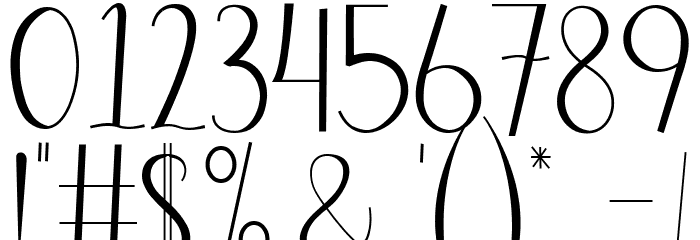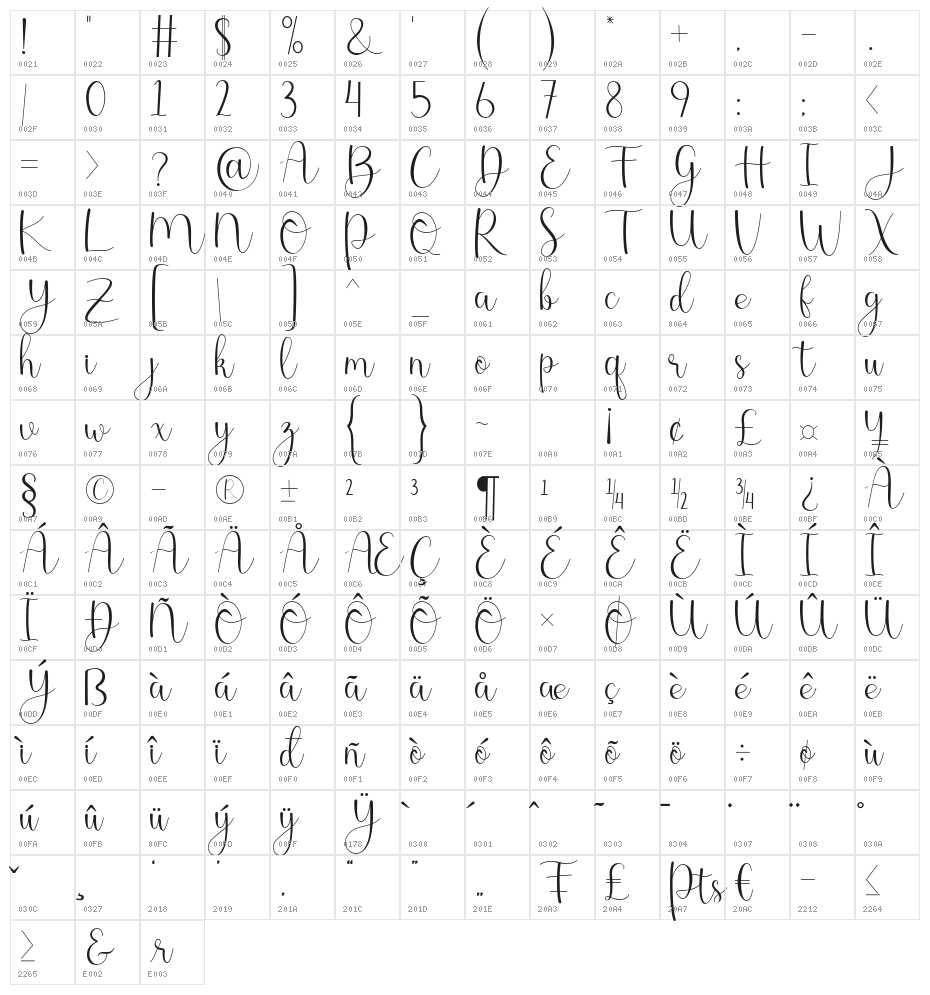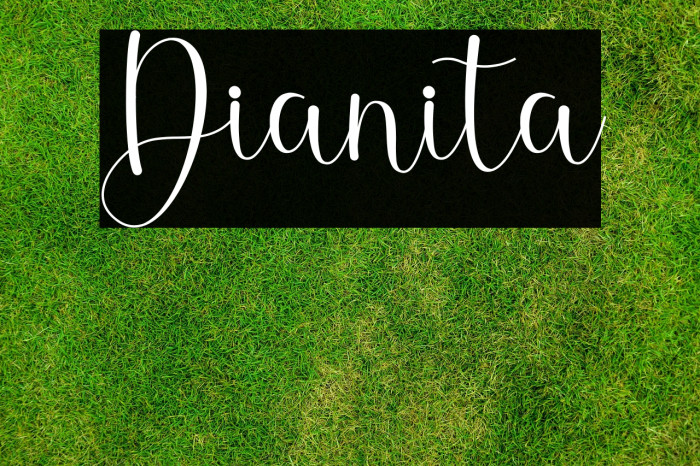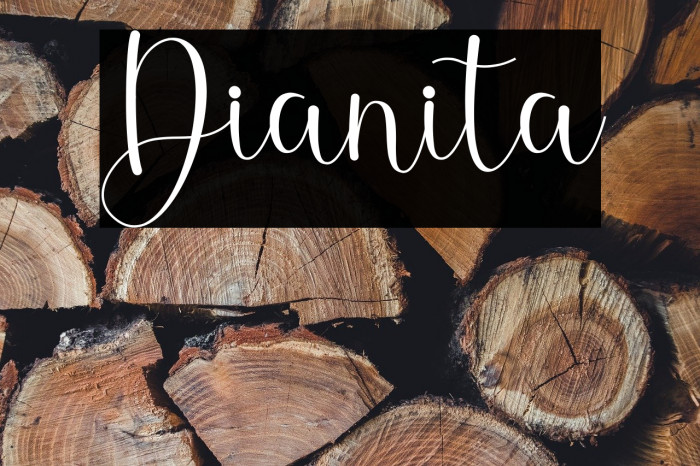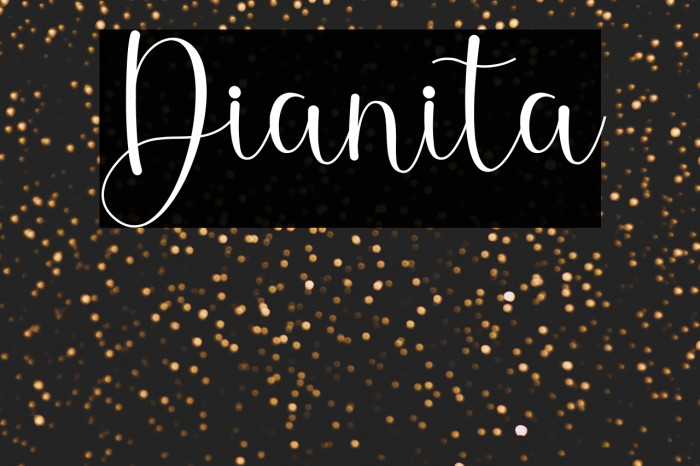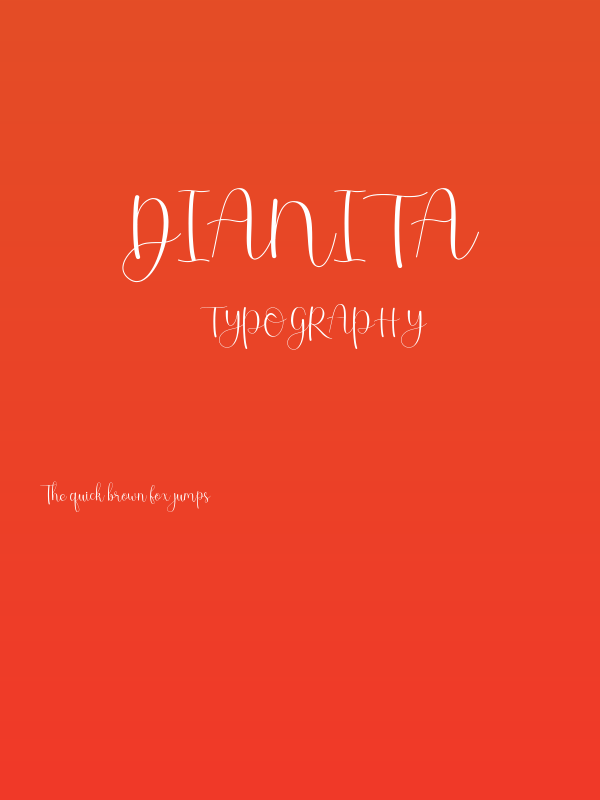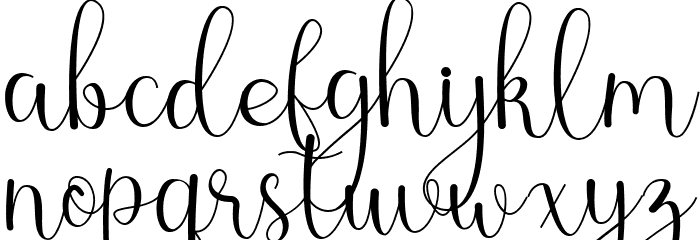
Dianita Font
Dianita Description
This font features a graceful and flowing script style, characterized by elegant, looping strokes and a handwritten appearance. The uppercase letters exhibit a sophisticated flair with extended ascenders and descenders, while the lowercase letters maintain a consistent fluidity. The numerals are bold and clear, providing a nice contrast to the delicate letterforms. Special characters are thoughtfully designed, complementing the overall aesthetic. The font's style is both modern and timeless, making it versatile for various design applications.
| Use Case | Logos, Invitations, Greeting Cards |
| Proposed Projects | Ideal for wedding invitations, greeting cards, branding, and logo design. |